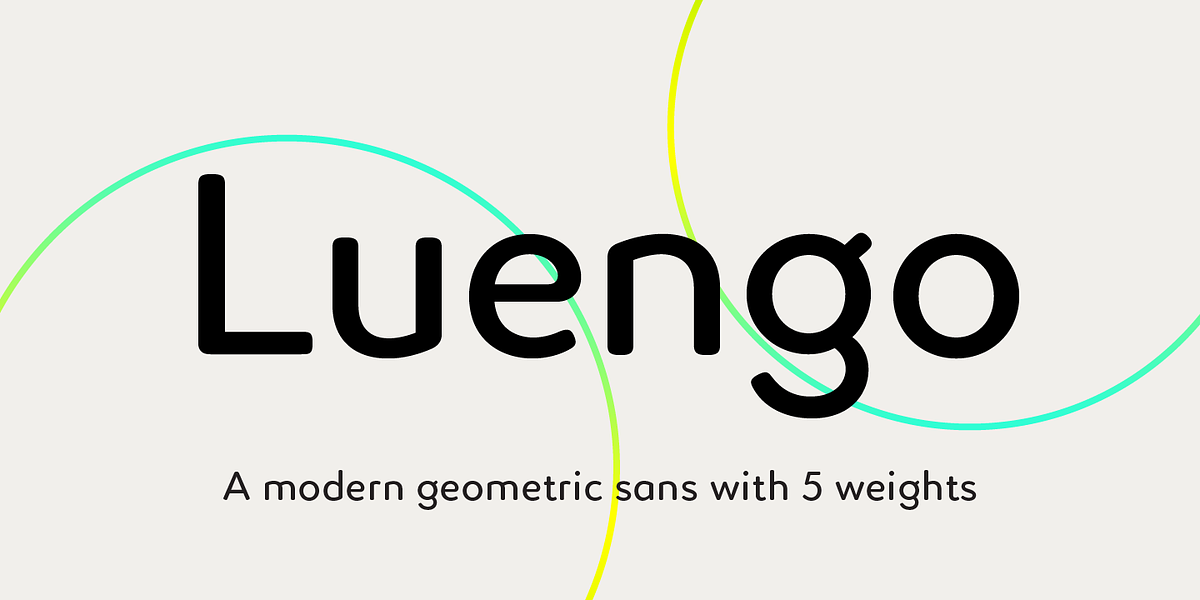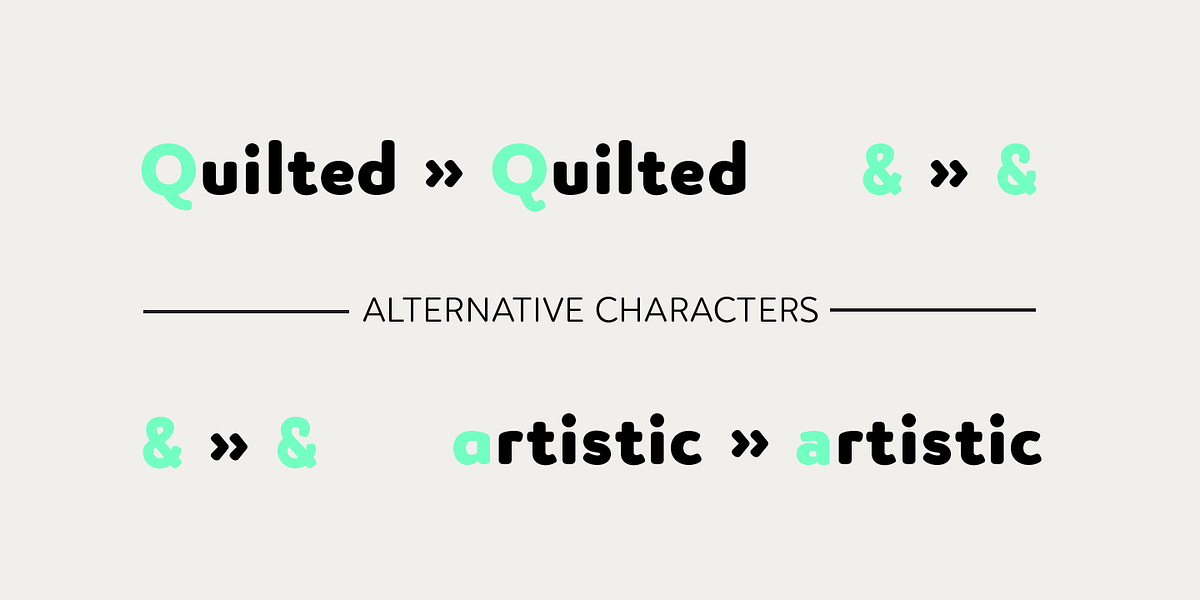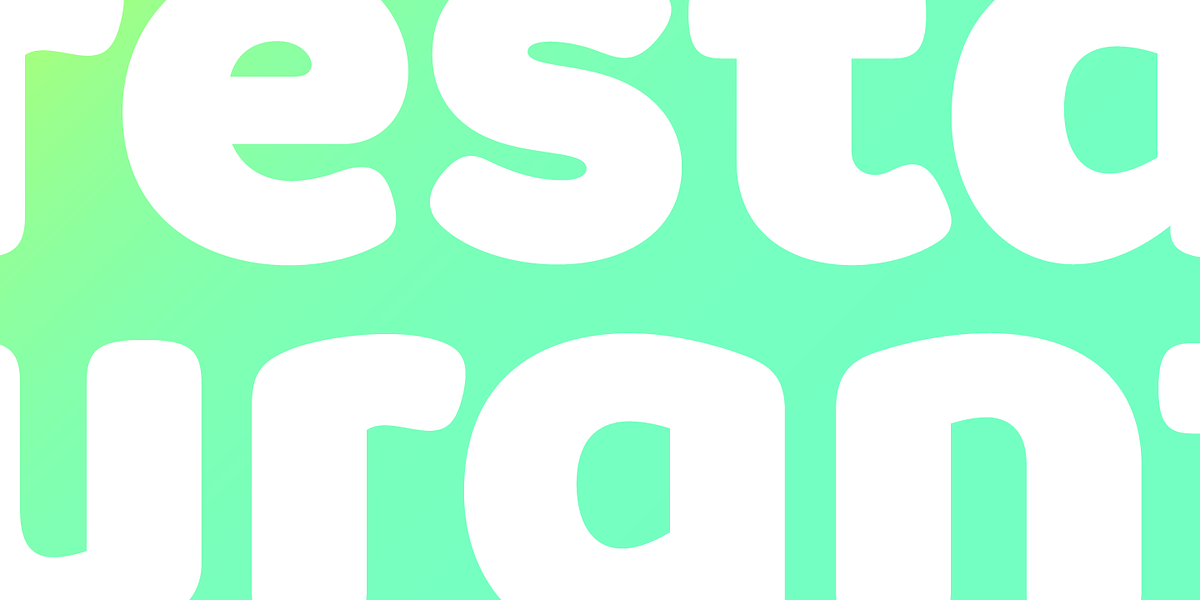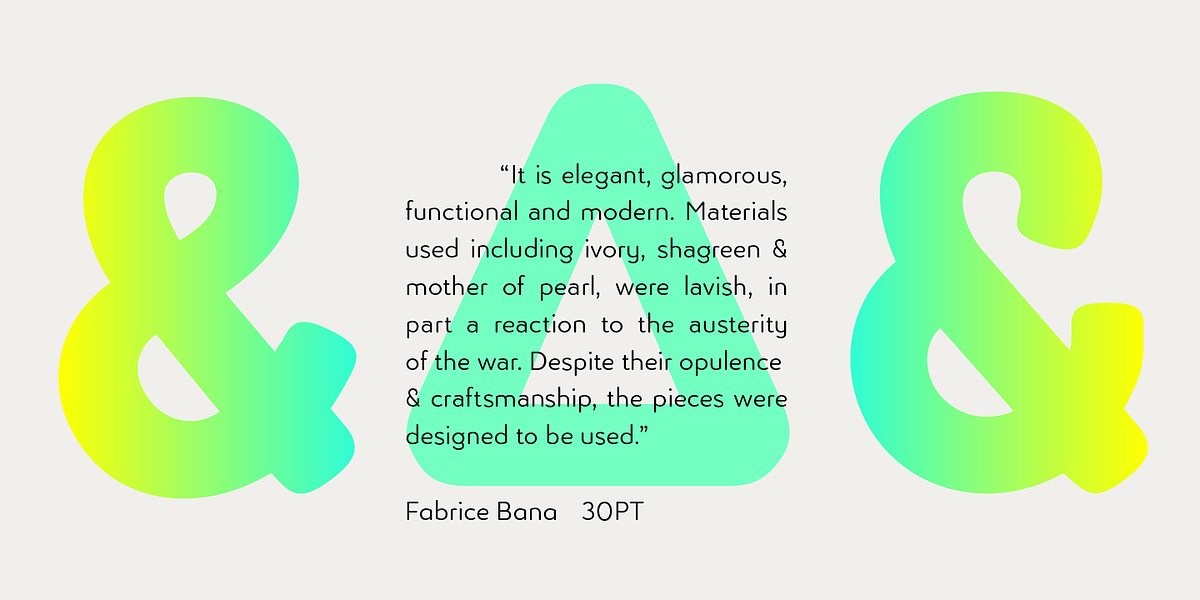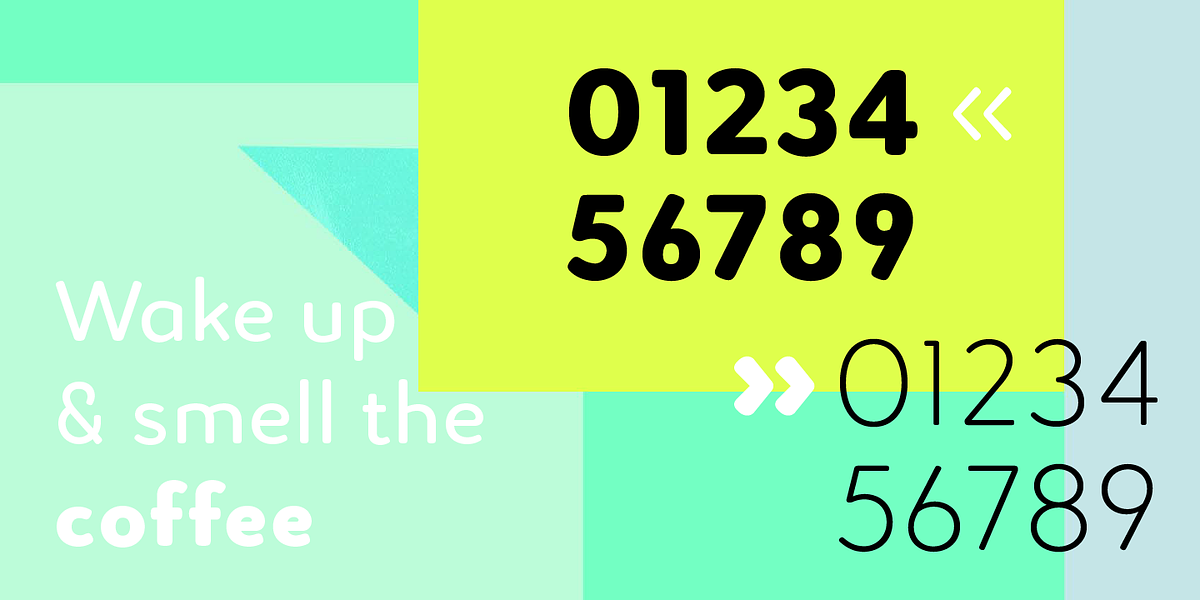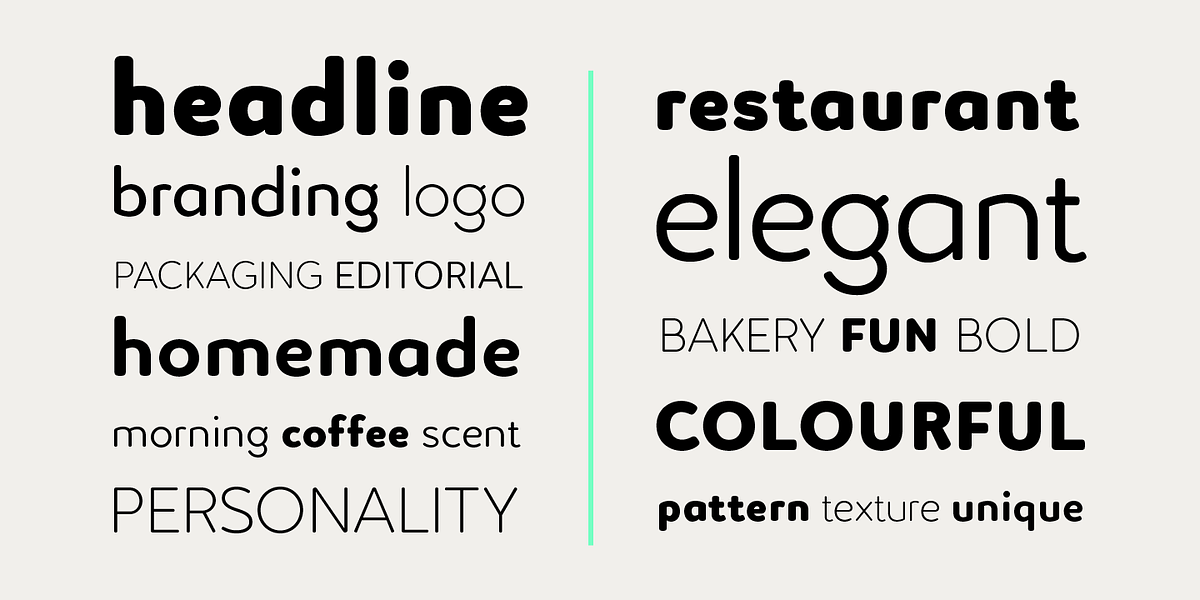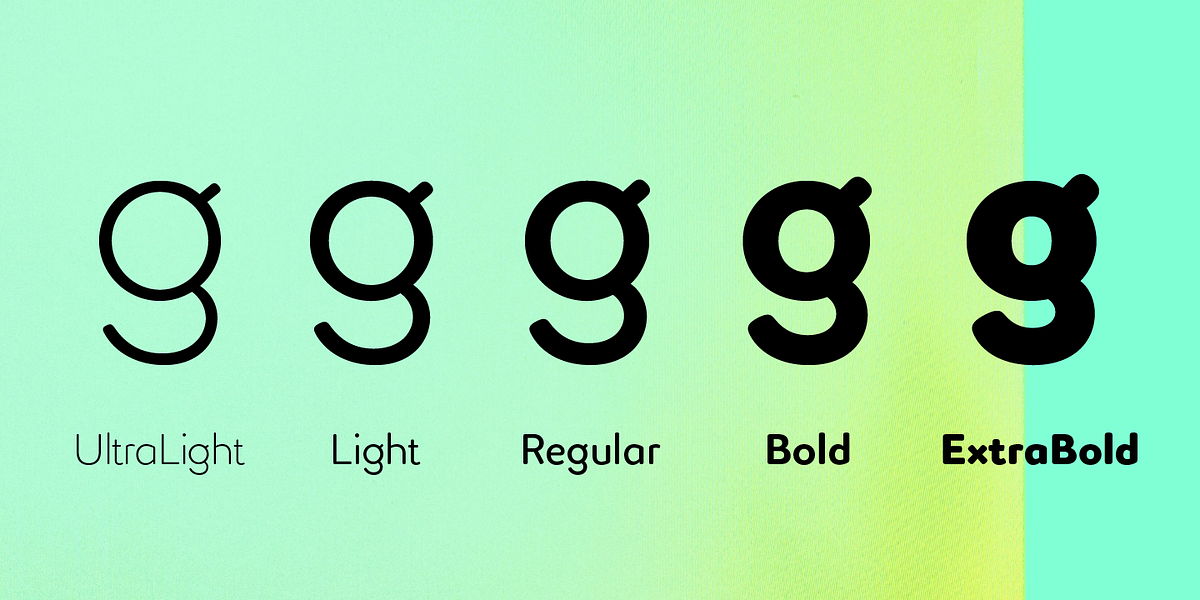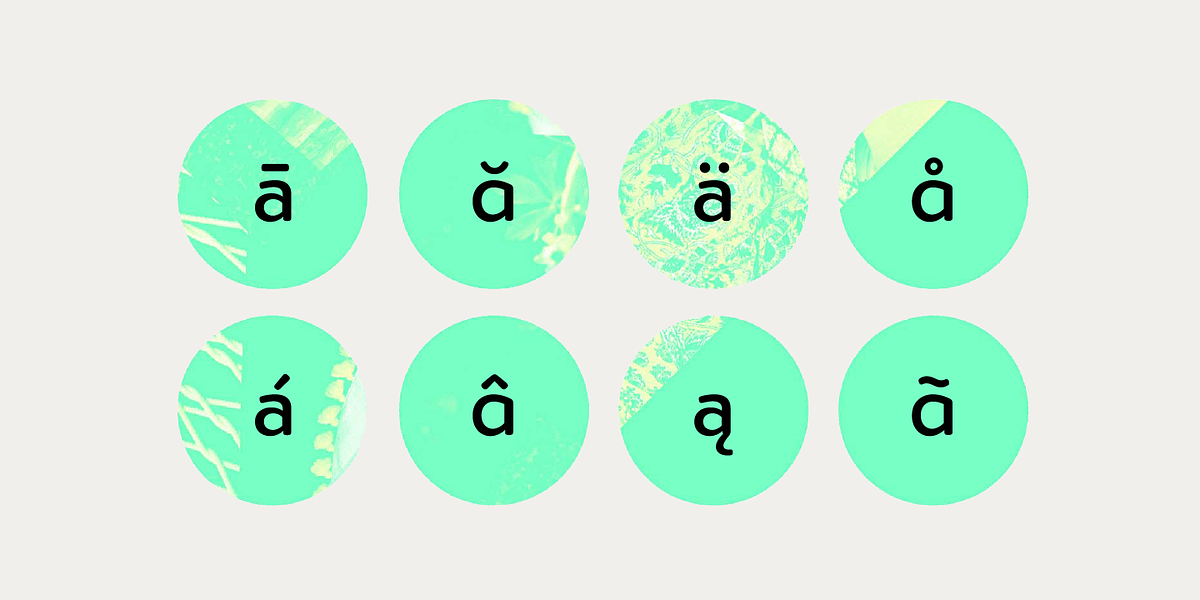
Luengo
Luengo is a contemporary sans-serif font family characterized by its geometric shapes and rounded corners. This combination lends it a soft, approachable feel while maintaining an air of elegance. Its versatility allows it to function effectively in both display settings (such as headlines) and longer blocks of text, making it suitable for a variety of applications including branding, packaging design, and editorial content.